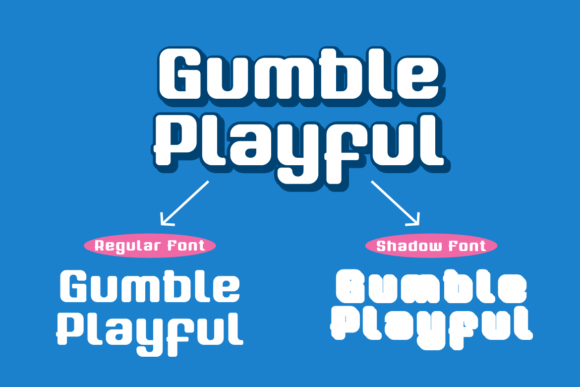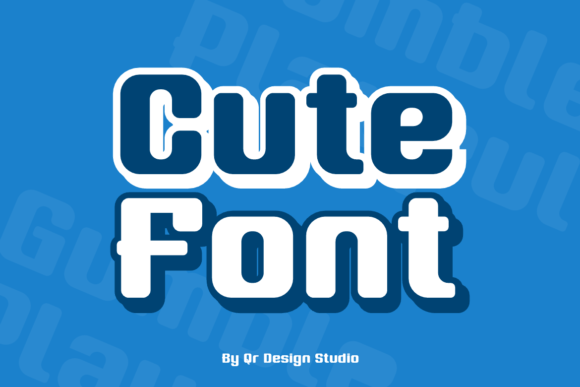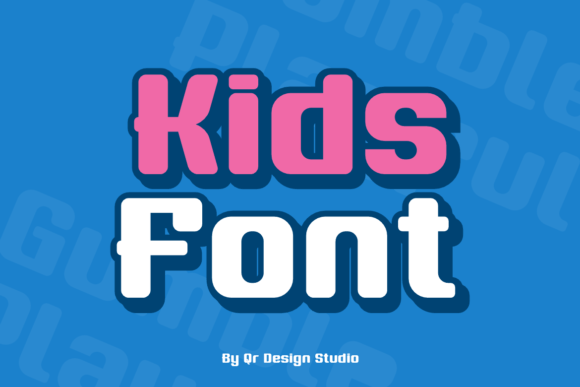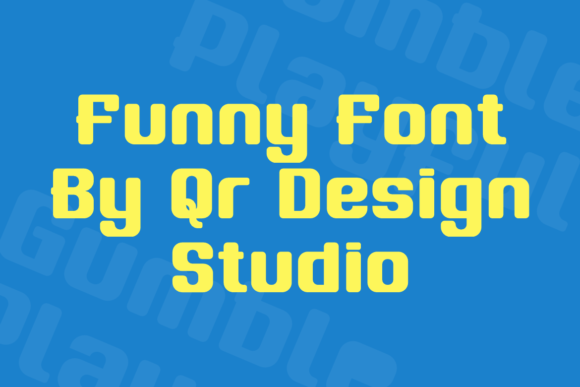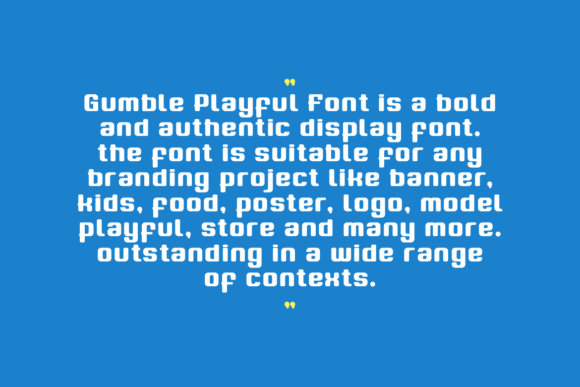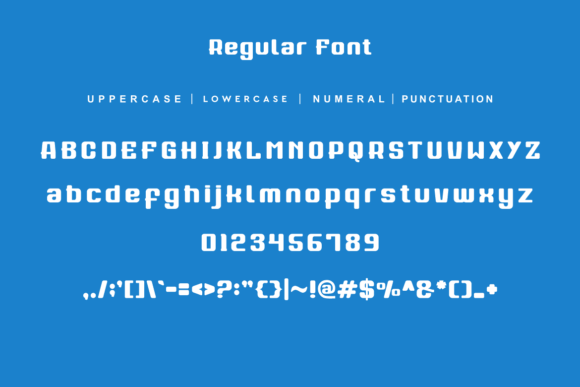
Introduction to Gumble Playful Font
Have you ever stumbled upon a design that instantly puts a smile on your face? For designers, that ‘aha’ moment is priceless. It’s the culmination of creativity, hard work, and the right tools. One such tool that can spark that magic is the Gumble Playful Font – a bold and authentic display font that’s perfect for any branding project.
With its wide range of applications, from kids’ brands to food logos, sports teams, and more, the Gumble Playful Font is an invaluable resource for designers. Its high-quality design and transparent background make it an ideal choice for creative projects. Whether you’re working on a logo, business card, or social media graphics, this font is sure to add a playful touch. And the best part? It’s available for free download, making it an accessible resource for designers of all levels.
Key Features of Gumble Playful Font
- Unique, playful design perfect for creative projects and designs that require a fun, approachable tone.
Honest Review: Gumble Playful Font
As a designer, I’m always on the lookout for high-quality design resources that can elevate my creative projects. The Gumble Playful Font is one such resource that caught my attention, and I’m excited to share my honest review.
- ✨ Unique and playful design style that adds a fun touch to any project.
The Gumble Playful Font is perfect for designers who want to add a bit of whimsy to their projects. It’s great for creating engaging social media graphics, flyers, and even branding materials.
- ⚠️ Limited font styles and weights, which may not be suitable for complex design projects.
- ⚠️ Some users may find the font’s playful style too informal for certain types of projects.
Overall, I’m impressed with the Gumble Playful Font’s design quality and ease of use. It’s a great addition to any designer’s toolkit, and I would definitely recommend it for creative projects that require a fun and playful touch.
The Gumble Playful Font is a high-quality, free design resource ideal for creative projects that require a playful and engaging look. Its transparent background makes it easy to integrate into various design elements.